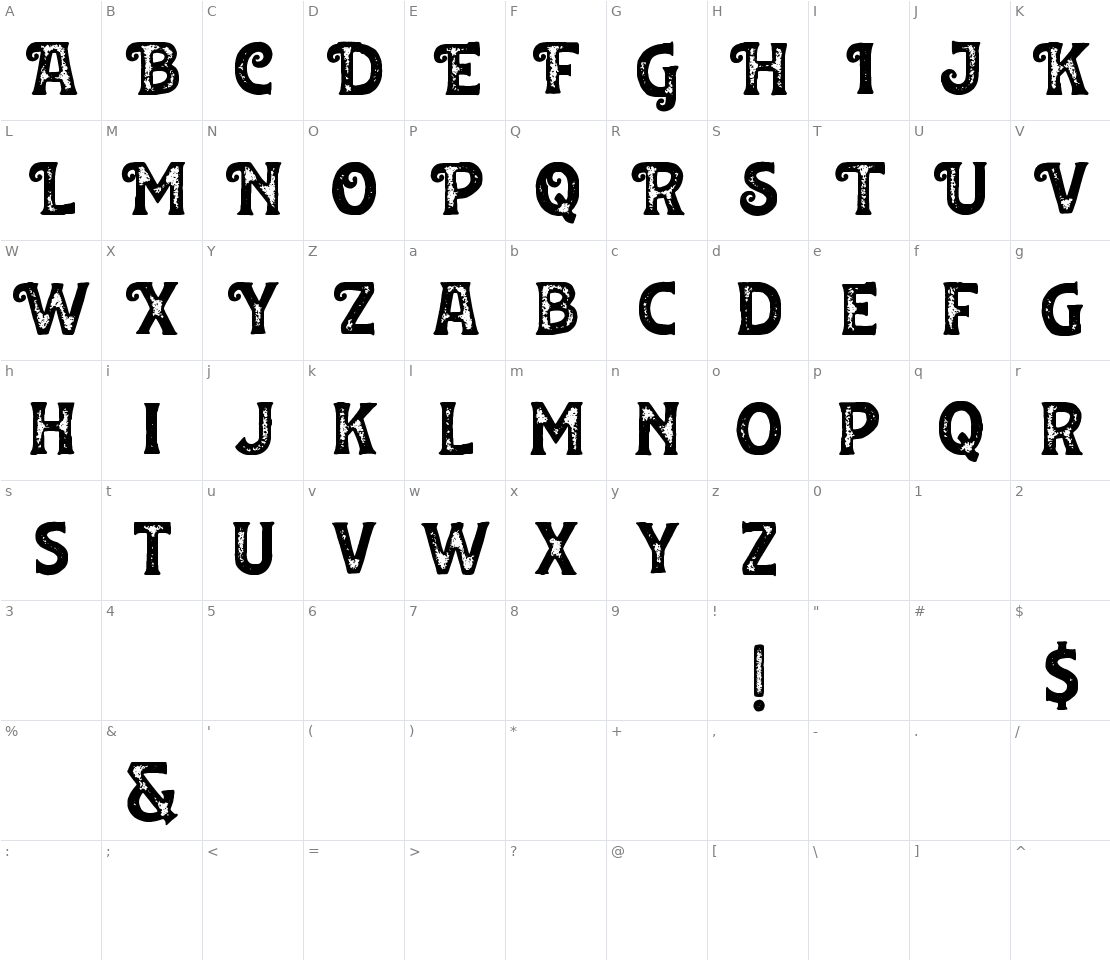
Huvet
by Nur Cholis Majid
Huvet is a bold, uppercase slab serif from Nur Cholis Majid with a heavily worn texture that gives it the feel of old wooden type that's been through decades of use. The distressed letterforms carry a rugged, western-inflected character, landing somewhere between vintage Americana and grunge poster art. Best kept to headlines and display settings where the gritty, weathered detail can do its job.